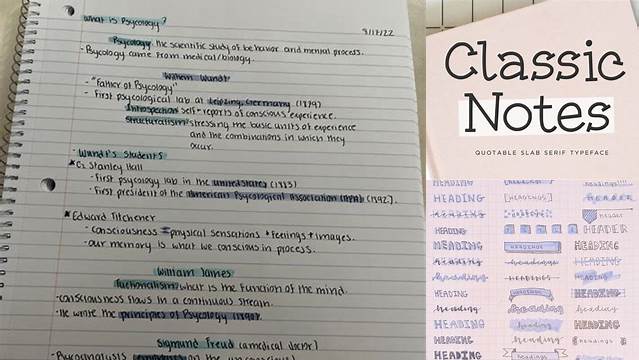
Aesthetic Fonts For Notes: Elevate Your Study Game
Hey guys, let's talk about something super important for making your study sessions way more enjoyable and effective: aesthetic fonts for notes! We all know how crucial it is to have notes that are not only informative but also visually appealing. When your notes look good, you're way more likely to actually want to study them, right? It’s like giving your brain a little treat every time you open your notebook. So, ditch those boring, standard fonts and let’s dive into the amazing world of fonts that can transform your notes from drab to fab. We're going to explore a bunch of options, from cute and quirky to elegant and minimalist, all designed to make your note-taking experience a whole lot prettier and, dare I say, more fun!
The Power of Typography in Note-Taking
Alright, let's get real for a sec, guys. Typography might sound a bit fancy, but it's essentially the art of arranging type – or in our case, the fonts we use. And trust me, it holds so much power, especially when it comes to your notes. Think about it: the font you choose sets the whole mood for your information. A bold, blocky font might scream 'IMPORTANT!' while a flowing script font could feel more personal and reflective. When you're choosing aesthetic fonts for notes, you’re not just picking letters; you’re curating an experience. This visual appeal can significantly impact how you absorb and retain information. Studies have shown that visually engaging materials are often easier to process and remember. So, by investing a little time into selecting the right fonts, you're actually investing in your own learning. It’s a smart move, if you ask me. Plus, who doesn't love a beautifully organized notebook? It’s like a work of art that also happens to contain all your crucial study material. It makes reviewing for exams feel less like a chore and more like admiring your own handiwork. So, let's get down to business and find some fonts that will make your notes sing!
Why Aesthetic Fonts Matter for Memory Retention
Let's dive a little deeper into why aesthetic fonts for notes are more than just a pretty face. It turns out, the visual appeal of your notes can actually play a significant role in how well you remember stuff. Think about it: when your notes are a monotonous block of the same old Arial or Times New Roman, your brain can get bored, and bored brains don't retain information as effectively. But when you use fonts that are visually distinct and pleasing, you're engaging more of your brain. It's like giving your memory a little jolt of interest. These fonts can help break up dense blocks of text, making them less intimidating and easier to digest. Plus, having different fonts for different types of information – maybe a serif font for definitions and a sans-serif for key points – creates a visual hierarchy that guides your eyes and your brain. This distinction helps in organizing the information subconsciously, making it easier to recall later. It's not just about making your notes look good for Instagram (though, let's be honest, that's a bonus!); it's a legitimate study hack. When your notes are organized and visually stimulating, you create stronger neural pathways associated with the information. So, next time you’re agonizing over font choices, remember you’re not being vain; you’re being strategic about your learning. It’s all about making that information stick, guys!
The Impact of Visual Hierarchy with Fonts
Okay, so let's chat about visual hierarchy, a super cool concept that really comes to life when you're picking out aesthetic fonts for notes. Basically, visual hierarchy is all about guiding the reader's eye through your notes in a logical and organized way. It's how you make sure someone (including your future self!) knows what's most important, what's a sub-point, and what's just supporting detail. Fonts are your absolute best friends in achieving this. By using different font weights (like bold vs. regular), sizes, and even styles (like serif vs. sans-serif), you create a clear roadmap for your brain. Imagine trying to read a book where every single word is the same size and weight – it would be a nightmare, right? The same applies to your notes. You want to be able to glance at a page and immediately understand the structure of the information. For example, using a larger, bolder font for your main topic headings makes them pop. Then, you can use a slightly smaller, regular weight for subheadings, and a standard font for the body text. This creates an intuitive flow. Incorporating aesthetic fonts means you can do this beautifully. Instead of just relying on size and weight, you can also use a more decorative or elegant font for a specific type of information, like a quote or a key definition, to make it stand out even more. It’s about creating visual cues that are both functional and aesthetically pleasing. This structure doesn’t just make your notes look neat; it makes them incredibly efficient for studying and recall. Guys, this is where the real magic happens!
Fonts for Headings vs. Body Text
When we're talking about aesthetic fonts for notes, it's super important to think about how you'll use them differently for headings and body text. These two parts of your notes have different jobs, so they need different typographic treatments. Headings are like the signposts of your notes. They need to be clear, commanding, and easy to spot at a glance. They should grab your attention and tell you what the section is all about. For this, you’ll want something with a bit more presence. Think bold, maybe a bit wider, or even a more stylized font that adds personality. A strong sans-serif font like Montserrat Bold or Oswald can work wonders for headings, providing clarity and impact. Alternatively, a more decorative serif font like Playfair Display could add a touch of elegance if that’s your vibe. The key is contrast! The heading font should stand out significantly from your body text font. Now, for the body text, the priority shifts from grabbing attention to ensuring readability and comfort during long study sessions. You want a font that’s easy on the eyes, clear, and doesn’t cause fatigue. Classic choices like Lato, Open Sans, or Roboto are fantastic because they are clean, legible, and don't distract from the content itself. A good rule of thumb is to pair a more attention-grabbing font for your headings with a simple, highly readable font for your body text. This contrast creates that crucial visual hierarchy we talked about, making your notes super easy to navigate. So, choose wisely, guys – the right pairing can make all the difference!
Sans-Serif Fonts: Clean and Modern Aesthetic
Alright, let’s talk about sans-serif fonts, which are like the workhorses of the aesthetic fonts for notes world, especially if you’re going for that clean, modern vibe. “Sans-serif” literally means “without serifs,” and serifs are those little decorative strokes at the end of the main strokes of a letter. Think of fonts like Arial or Helvetica – those are classic sans-serifs. What makes them so great for notes? They’re incredibly readable, especially on digital screens, but they also bring a sense of simplicity and directness to your pages. They don’t have any fuss, which means your information takes center stage. If you want your notes to feel organized, crisp, and contemporary, sans-serifs are your go-to. They're perfect for breaking down complex information because their clarity ensures nothing gets lost in translation. Fonts like Lato, Open Sans, and Roboto are incredibly popular for a reason – they're highly legible and have a friendly, approachable feel. For a slightly more stylish take, consider fonts like Montserrat, which is geometric and modern, or Quicksand, which is rounded and super soft. These fonts lend themselves well to bullet points, definitions, and general body text because they don't demand too much visual energy. They allow the content to flow smoothly, making it easier for you to focus on what you’re learning. Plus, they pair really well with more decorative or script fonts if you want to add a touch of flair for headings or important quotes. So, if a clean, uncluttered, and modern aesthetic is what you’re after for your study notes, definitely explore the world of sans-serifs, guys!
####### Popular Sans-Serif Choices for Note-Taking
When you're on the hunt for aesthetic fonts for notes, especially those clean, modern sans-serifs, you've got some awesome options that are super popular for good reason. These fonts are all about clarity and a contemporary feel, making your notes easy to read and visually pleasing. First up, we have Lato. It's a fantastic choice because it strikes a perfect balance between being serious and friendly. Its semi-rounded details give it a warm feel, while its structure keeps it very legible. It’s great for both headings and body text, offering versatility. Then there's Open Sans. This one is a true classic in the web and design world for a reason: it’s incredibly versatile and highly readable. It has a very neutral and friendly appearance, making it perfect for extensive note-taking without causing eye strain. Roboto is another powerhouse, developed by Google. It's a neo-grotesque sans-serif that balances geometric forms with friendly curves. It feels modern, efficient, and super clear, making it ideal for cramming lots of information. For something a bit more geometric and stylish, check out Montserrat. It's inspired by old posters and signs in the Montserratian neighborhood of Buenos Aires. It has a cool, urban vibe and works exceptionally well for headings and titles, giving your notes a bold, fashionable edge. And if you love a softer, rounder look, Quicksand is your jam. It's incredibly friendly and legible, with lovely rounded terminals that give it a unique, gentle aesthetic. These fonts are readily available on most platforms and are often free, making them super accessible for everyone looking to upgrade their note-taking game. Guys, incorporating these will instantly give your notes that polished, aesthetic look you're after!
######## Serif Fonts: Timeless Elegance and Readability
Now, let's switch gears and talk about serif fonts, which bring a whole different kind of charm to your aesthetic fonts for notes. Unlike sans-serifs, serif fonts have those little feet, or serifs, at the ends of their strokes. Think of traditional newspapers or classic books – they often use serif fonts. And guess what? This lends them an air of timeless elegance and a certain gravitas. For notes, serif fonts can be fantastic for adding a touch of sophistication and making your writing feel a bit more formal or academic, without being stuffy. They can also be surprisingly readable, especially for longer passages of text. The serifs help guide the eye along the line, which can actually reduce reading fatigue for some people. If you’re aiming for a classic, slightly vintage, or very polished look, serif fonts are definitely worth considering. They add a level of detail and refinement that sans-serifs just can't quite match. Imagine using a beautiful serif font for your main subject headings or for particularly important definitions – it instantly elevates the look of your page. It’s like giving your notes a little bit of that old-school charm that never goes out of style. They often feel more established and authoritative, which can be a great psychological boost when you're tackling difficult subjects. So, don't count out the classics, guys; serif fonts have a lot to offer in the aesthetic department!
######### Classic Serif Fonts for a Sophisticated Look
When you want to imbue your notes with a sense of timelessness and sophistication, reaching for classic serif fonts is the way to go, especially when curating aesthetic fonts for notes. These fonts exude a certain academic or literary feel that can make your study materials look incredibly polished. A top-tier choice is Garamond. It’s an old-style serif font that’s known for its elegance and readability. It has a beautiful, classic look that’s not too stuffy, making it perfect for both headings and body text if you desire a consistently refined aesthetic. Then we have Times New Roman. While it might seem a bit ubiquitous, its enduring popularity stems from its excellent readability and balanced design. For notes, it can lend a very formal and serious tone, ideal for detailed essays or historical timelines. Georgia is another fantastic option, often considered a more modern and screen-friendly serif. It’s slightly heavier than Times New Roman, making it very clear and readable, even at smaller sizes, and it possesses a warmth that’s quite inviting. For something with a bit more flair and a distinctly elegant feel, consider Playfair Display. This font has high contrast between thick and thin strokes, giving it a very sophisticated, almost calligraphic appearance. It's particularly stunning for major headings or titles where you want to make a strong, elegant statement. Finally, Merriweather is a serif font designed for comfortable reading on screens. It's robust and has a slightly quirky character, making it a great choice if you want elegance without sacrificing approachability. Using these classic serif fonts can really elevate your notes, giving them a distinguished look that’s both beautiful and highly functional for studying, guys. They’re proof that traditional design still holds immense power!
########## Script Fonts: Adding a Personal and Artistic Touch
Okay, now for something completely different and super fun: script fonts! If you're looking to inject some serious personality and artistic flair into your aesthetic fonts for notes, script fonts are where it's at. These fonts mimic the look of handwriting, ranging from elegant calligraphy to more casual, brush-stroke styles. They're perfect for adding a personal touch, making your notes feel unique and special. Imagine using a beautiful script font for your name at the top of your notes, or for special headings, quotes, or even important dates. It’s like adding a signature flourish that makes your notes truly yours. However, a word of caution, guys: script fonts are generally best used sparingly. Because they can be quite decorative and sometimes less legible than standard fonts, using them for large blocks of text can be a headache to read. Think of them as the sprinkles on a cupcake – a little goes a long way! They are your secret weapon for adding emphasis and a touch of artistry. They can break up the monotony of more structured fonts and add a delightful visual surprise. When used thoughtfully, they can make your notes feel more engaging and memorable, like a beautifully crafted journal entry rather than just a list of facts. So, don't be afraid to experiment, but use them strategically to enhance, not overwhelm, your content.
########### Beautiful Script Fonts for Embellishing Notes
Let's talk about some specific script fonts that can really make your aesthetic fonts for notes sing, especially when you want to add that touch of personal artistry. These are the fonts that feel like they’re written by hand, bringing warmth and character to your pages. A fantastic option is Pacifico. It's a casual, flowing script font that's incredibly popular and very readable for a script. It has a retro vibe and looks great for titles or short bursts of text where you want a friendly, energetic feel. For something more elegant and sophisticated, Great Vibes is a superb choice. It’s a beautiful, flowing calligraphy font that adds a touch of luxury and grace. Use this for special titles, affirmations, or inspirational quotes within your notes. Another gorgeous option is Dancing Script. It’s bouncy and playful, with an informal charm that feels very personal and approachable. It’s excellent for adding a bit of personality to section breaks or personal reflections. If you’re looking for something with a bit more flourish and a distinctly vintage feel, Sacramento is a lovely choice. It's very delicate and handwritten, perfect for adding a subtle artistic touch. And for a font that feels like classic, beautiful penmanship, Allura is a great pick. It’s elegant, clean, and has a lovely rhythm. Remember, the key with script fonts is to use them as accents. They’re perfect for making specific elements pop, like a key term, a personal motto, or a section divider. They add that extra layer of personality and aesthetic appeal that can make studying feel so much more enjoyable, guys. They turn your notes into something truly unique!
############ Handwritten Fonts: The Ultimate Personal Touch
Moving beyond formal scripts, let’s talk about handwritten fonts – the ultimate way to get that super personal, aesthetic fonts for notes vibe. These fonts aim to replicate the look of actual handwriting, but often with a bit more legibility and consistency than true cursive might offer. They’re perfect for making your notes feel like they came straight from your brain, just a slightly tidier version! Think of them as a bridge between the formality of typed text and the intimacy of personal handwriting. They can add a unique character and warmth that typed fonts just can’t achieve. Using a handwritten font for your title, for key definitions, or even for bullet points can make your notes instantly feel more approachable and less intimidating. It's like having a friendly guide walking you through the material. They can also be great for journaling aspects of your notes or for adding personal reflections. Some handwritten fonts are very clean and simple, mimicking everyday handwriting, while others are more stylized, perhaps with a slight brush effect or a more whimsical feel. The beauty of these fonts is their versatility in conveying a personal tone. They make your notes feel less like a sterile document and more like a living, breathing study companion. So, if you want your notes to feel truly yours, guys, exploring the world of handwritten fonts is a must!
############# Exploring Diverse Handwritten Fonts for Notes
When you’re diving into the world of aesthetic fonts for notes, handwritten fonts offer a fantastic way to personalize your study materials. They bring a unique blend of legibility and character that mimics the intimacy of handwriting. Let’s explore some awesome options, guys! First off, consider Caveat. This font is designed to look like casual, everyday handwriting, making it incredibly approachable and easy to read. It's perfect for turning your digital notes into something that feels more personal. Then there's Permanent Marker. As the name suggests, it has that bold, slightly rough look of a marker pen. It’s great for drawing attention to key terms or for headings that need to pack a punch with a handwritten feel. For a slightly more whimsical and handwritten aesthetic, Indie Flower is a delightful choice. It’s rounded, friendly, and has a playful charm that can brighten up any page. If you prefer a cleaner, more structured handwritten style, Patrick Hand is excellent. It strikes a great balance between being clearly legible and having that personal, handwritten touch. And for those who love a touch of artistic flair, Reenie Hand offers a more stylized, almost quirky handwritten look that’s full of personality. These fonts are fantastic because they bridge the gap between the efficiency of typed notes and the personal connection of handwriting. They make your notes feel more engaging and can aid in recall by adding a unique visual signature to your information. So, experiment with these to find the perfect handwritten voice for your notes!
############## Monospaced Fonts: A Retro and Technical Feel
Let's switch gears again and talk about monospaced fonts, which might not be the first thing you think of for